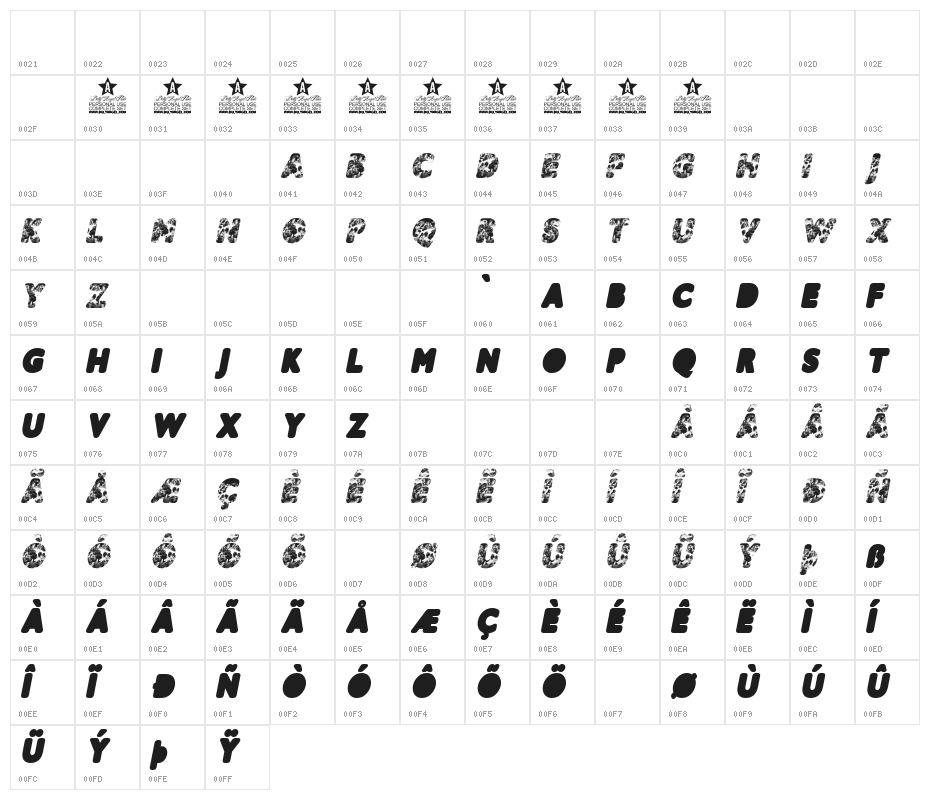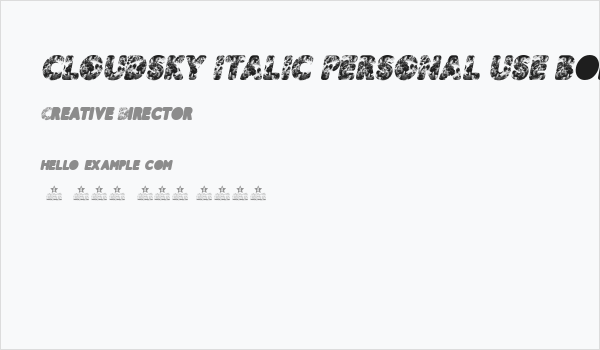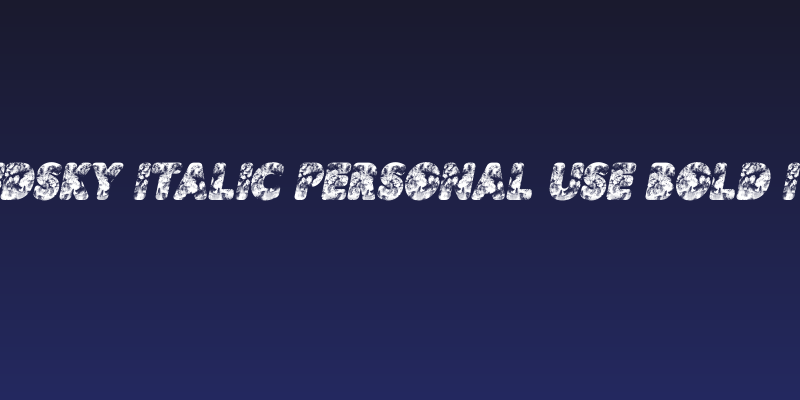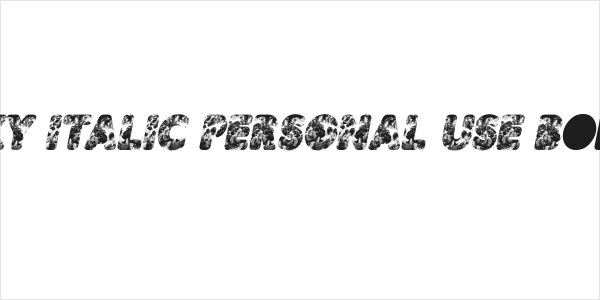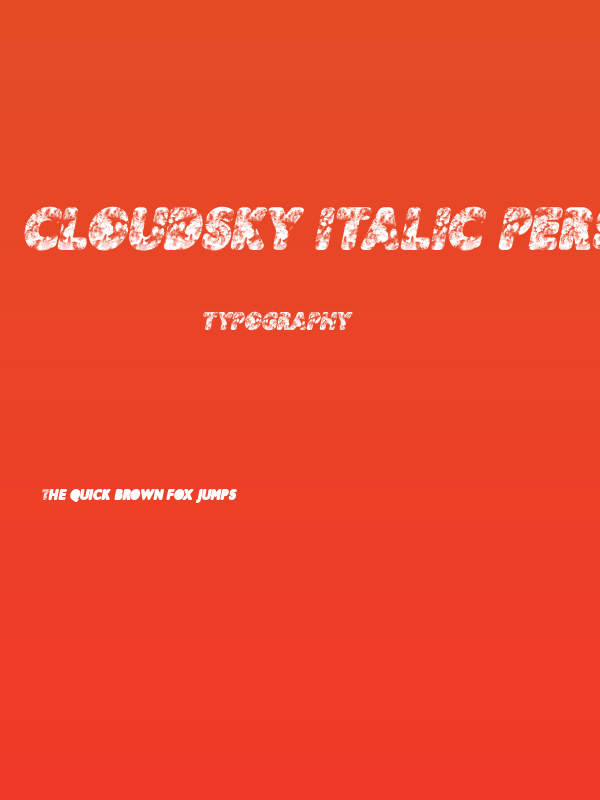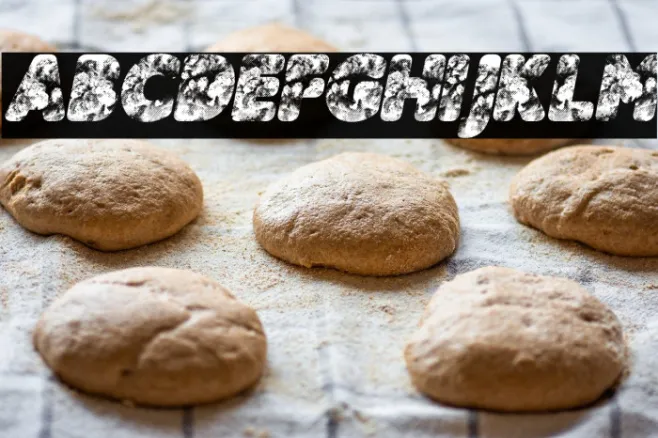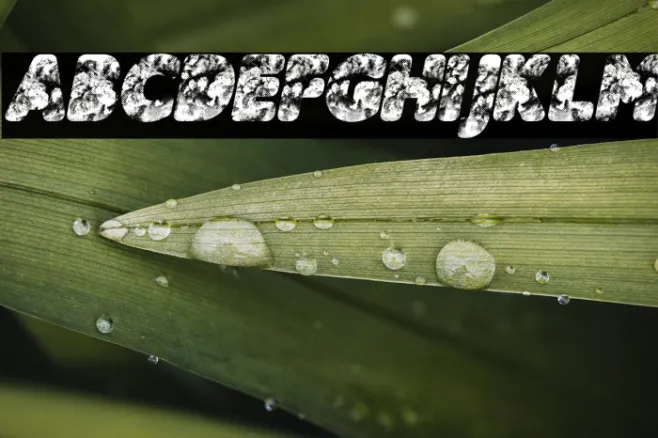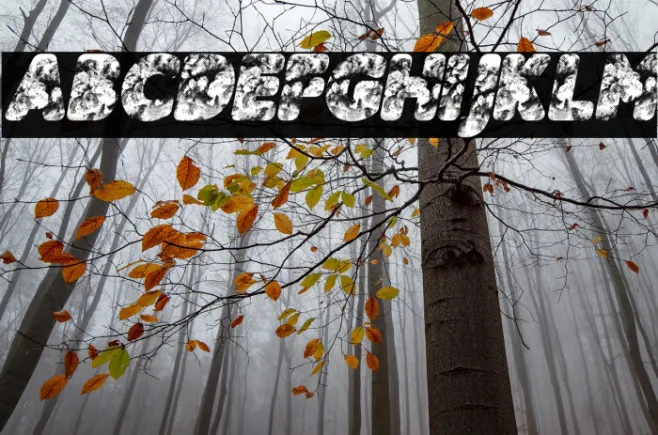
CLOUDSKY ITALIC PERSONAL USE Bold Italic Font
CLOUDSKY ITALIC PERSONAL USE Bold Italic Description
This font features a bold and italic style with a unique cloud-like texture that gives it a distinctive and playful appearance. The uppercase letters are prominently displayed with a bold weight, making them stand out with a strong presence. The texture within each character resembles a cloudy sky, adding a whimsical and artistic touch. The font maintains a consistent width and spacing, ensuring readability while still offering a creative flair. Its decorative nature makes it suitable for projects that require a fun and eye-catching design.
| Use Case | Logos, Headlines, Posters |
| Proposed Projects | Ideal for children's book covers, playful branding, event posters, and creative social media graphics. |